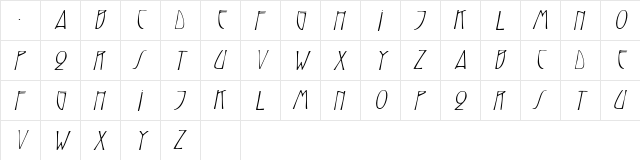
TrilliumCapsSSK Italic
Design Context for TrilliumCapsSSK Typeface
TrilliumCapsSSK offers clean, dependable letterforms without strong stylistic allegiance, making it a practical choice for designers who need flexibility. The dynamic lean of this cut emphasises speed and emphasis in any layout.